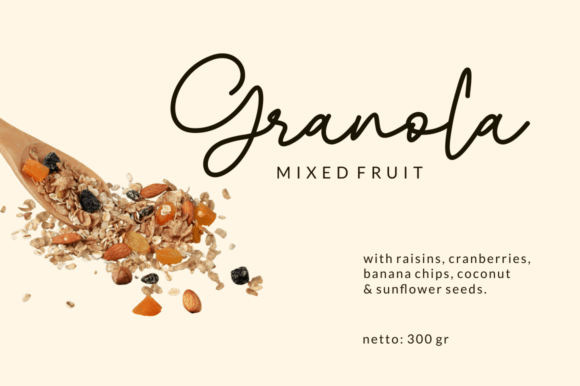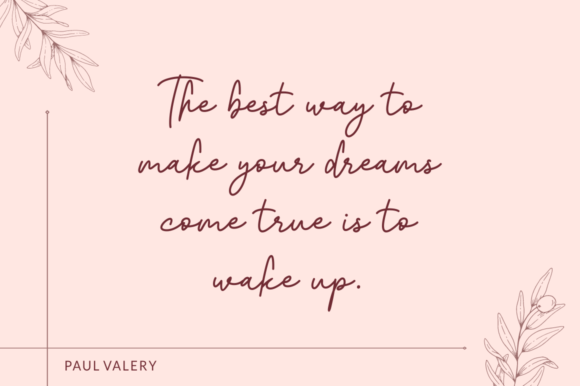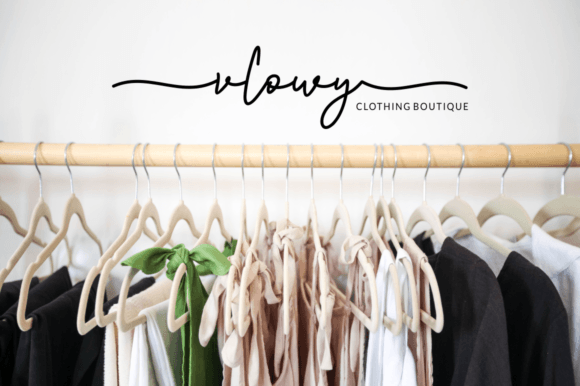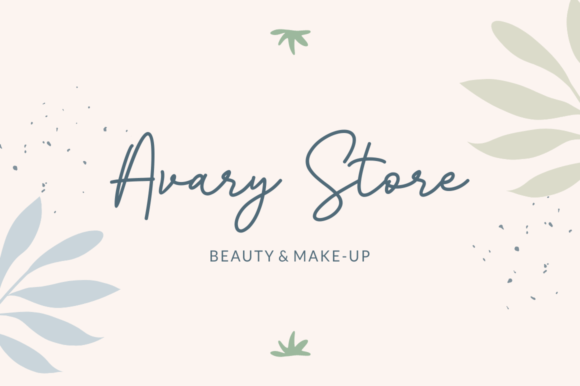
Kukatta Font
About Kukatta Font
Kukatta is a stunning and understated script font that emanates elegance and class. Tailored for those who seek a beautiful and refreshing aesthetic, this font proves to be a versatile choice for an array of design projects. Whether you’re working on product packaging, branding initiatives, magazine covers, social media posts, weddings, or simply expressing words over a background, Kukatta adds a touch of sophistication to elevate your designs.
The font’s subtle script style brings a sense of grace and refinement, making it particularly well-suited for product packaging and branding projects. Whether you’re creating labels, tags, or establishing the visual identity for a product, Kukatta adds an elegant touch that contributes to a sense of luxury.
In the realm of magazine covers, Kukatta introduces a refined and captivating look. Its script design can be employed to create stylish headlines or taglines, adding a touch of sophistication to your magazine design.
For social media, Kukatta offers a beautiful and polished option for posts and graphics. Whether it’s for promotional content, quotes, or announcements, the font’s elegance and class can help your social media presence exude a sense of style.
In wedding materials, Kukatta lends a timeless and sophisticated look. From invitations to place cards, the font adds an element of class that complements the elegance of wedding celebrations.
The PUA encoding of the font is a valuable feature, allowing easy access to all glyphs and swashes. This feature enhances customization possibilities, enabling you to personalize the font to match the specific requirements of your design projects.
In summary, Kukatta is not just a font; it’s a design asset crafted for those in search of a beautiful and refreshing look with an emphasis on elegance and class. Whether your focus is on product packaging, branding, magazines, social media, weddings, or any project that demands a touch of sophistication, Kukatta is designed to meet your needs and bring an elevated aesthetic to your creations.